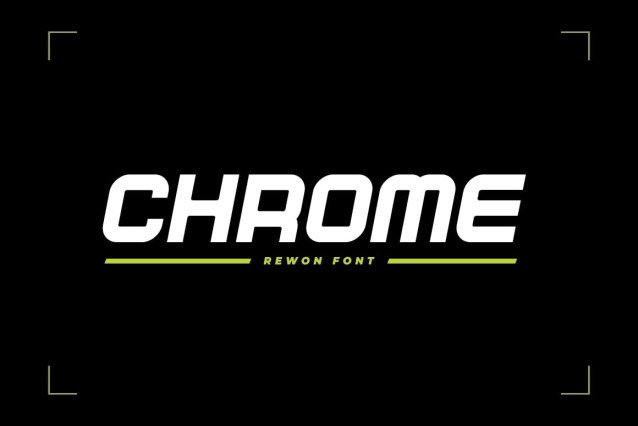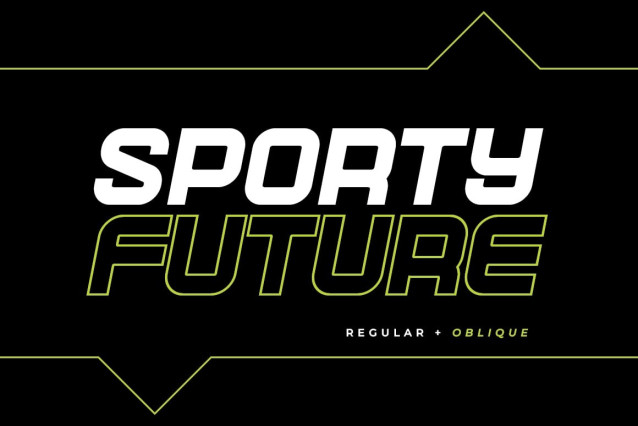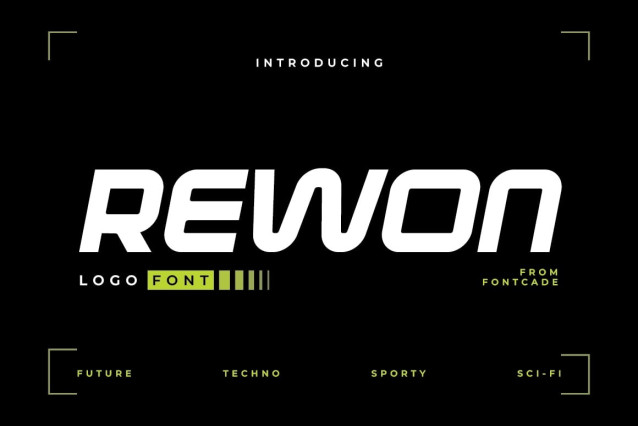
Rewon Slanted Font
Rewon Slanted Font is a bold and futuristic display typeface built for high-impact visual communication. With its clean lines, wide proportions, and confident letterforms, Rewon delivers a powerful and professional tone. It is ideal for technology branding, sports identities, gaming titles, automotive design, and modern logos. Designed to command attention, Rewon performs exceptionally well across digital screens, posters, and large-scale graphics.